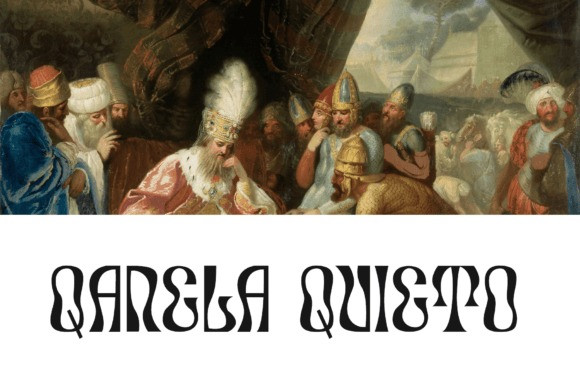
Mobile Nuelin Font
Mobile Nuelin is a playful, bold, and groovy serif display font. With a distinct, retro vibe, this font is perfect if you need a groovy dose of fun for your projects.